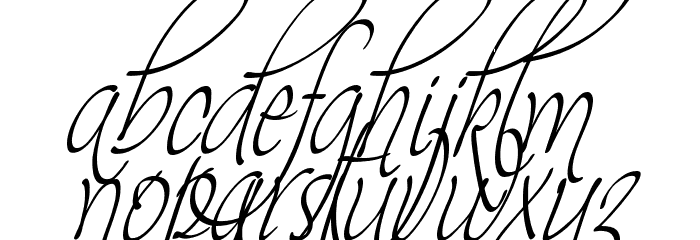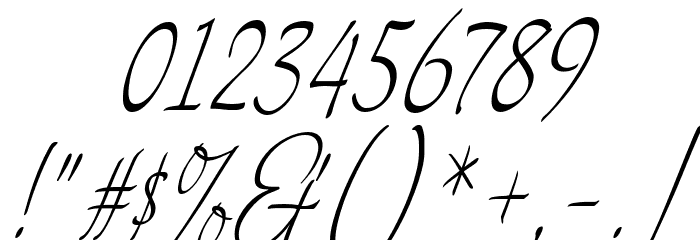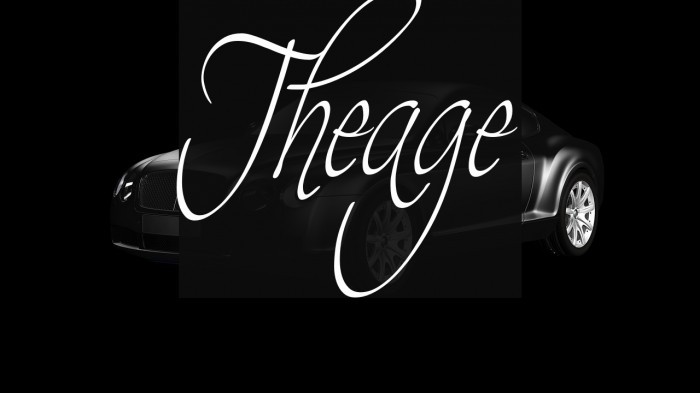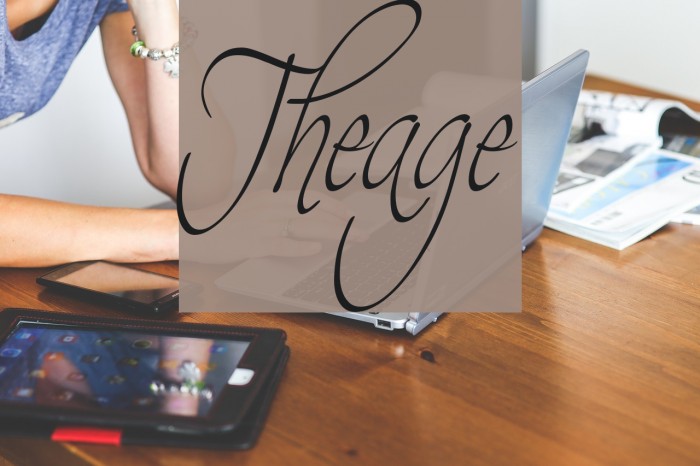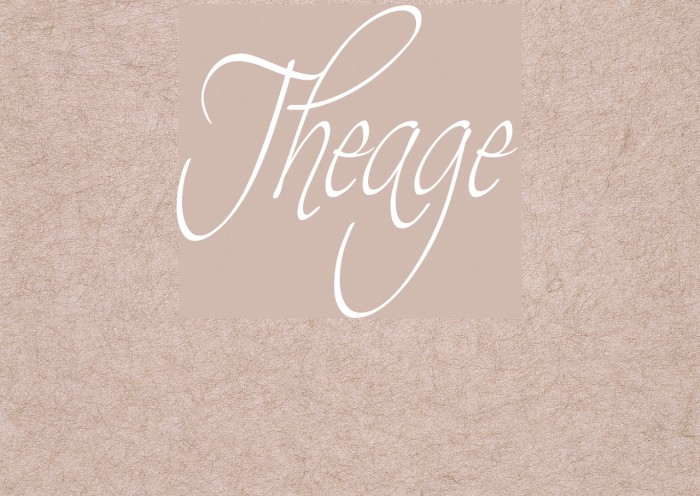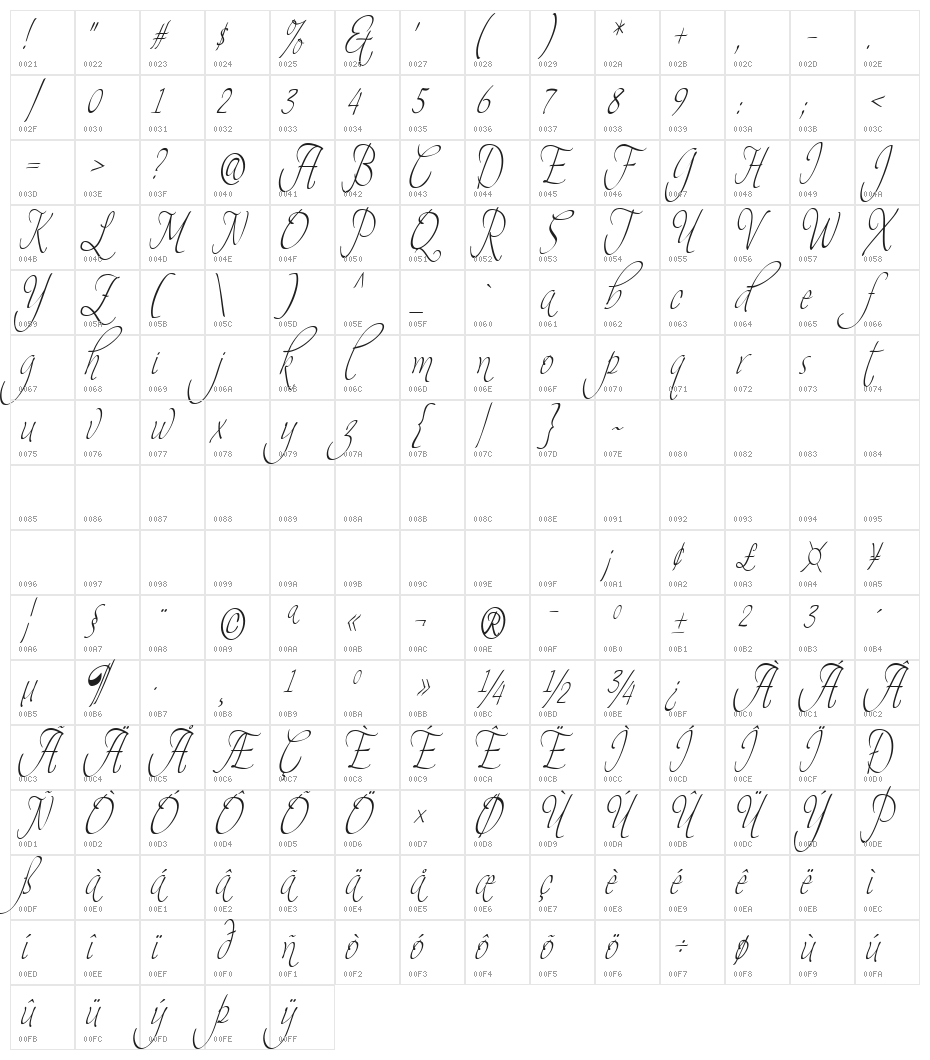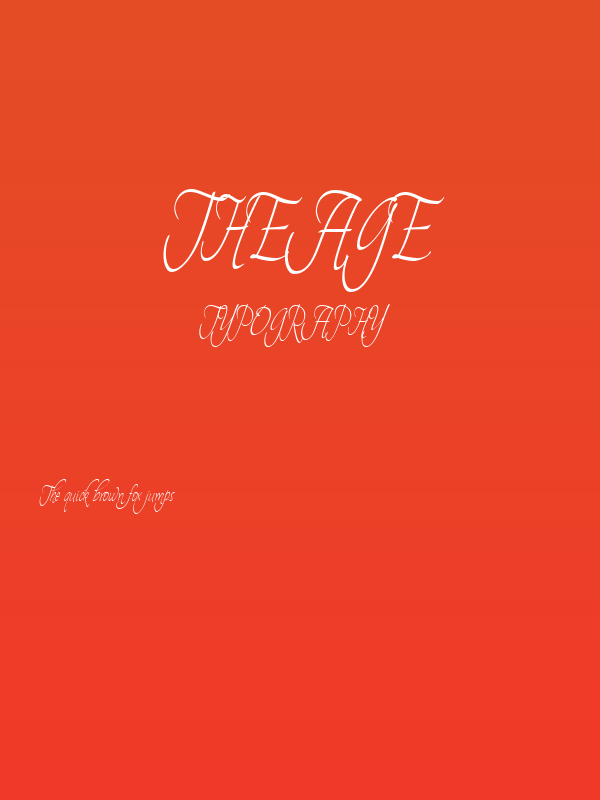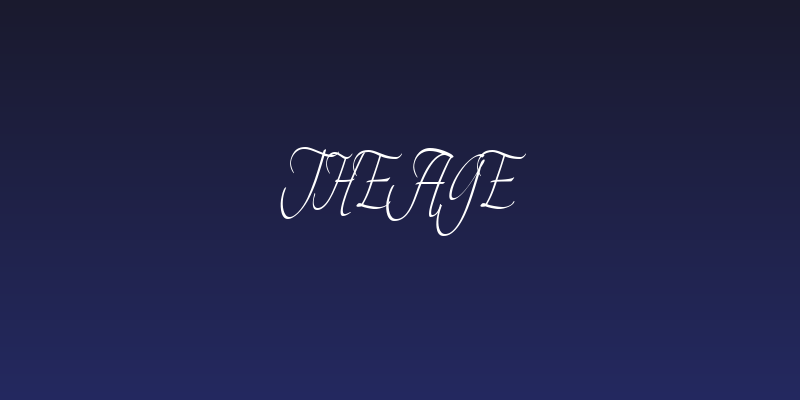
Theage Font
This elegant script font features flowing, cursive letterforms with a refined and sophisticated appearance. The uppercase letters are tall and graceful, with sweeping ascenders and descenders that create a sense of movement and fluidity. The lowercase letters are equally graceful, with a consistent slant and smooth connections between characters. The numerals are designed to match the style of the letters, maintaining the same elegant curves and lines. Special characters are included, each crafted with the same attention to detail and style. This font is perfect for projects that require a touch of elegance and sophistication, such as wedding invitations, formal event programs, or luxury branding.
An elegant script font with flowing, cursive letterforms and a sophisticated appearance.
- Proposed Projects: Ideal for wedding invitations, formal event programs, luxury branding, and elegant stationery.
- Overall Style: Elegant
- Use Case: Logos, Invitations, Decorative text